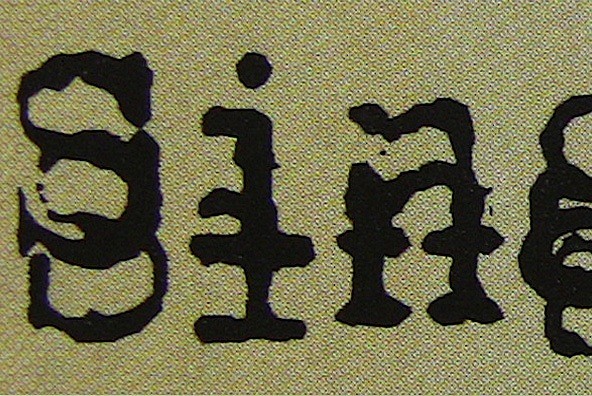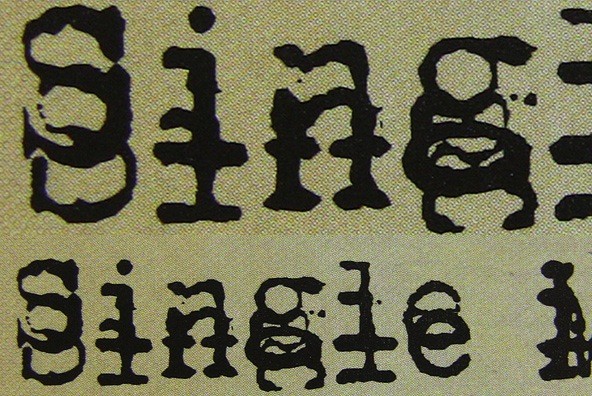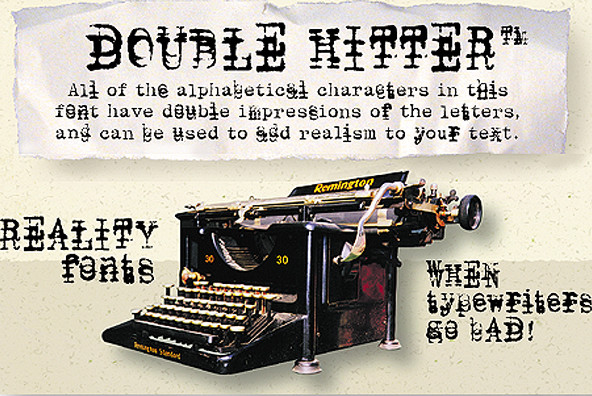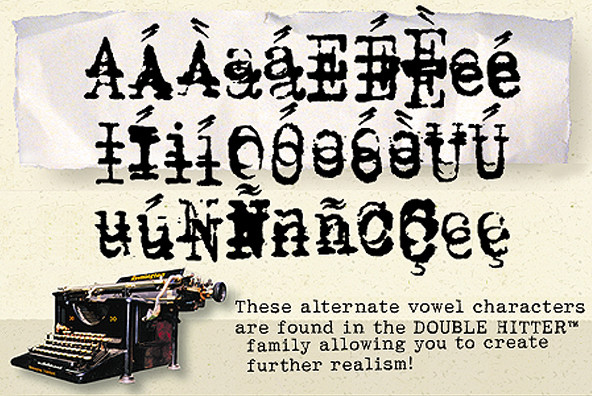
Double Hitter
This font was created mostly to be a companion set for our other Typewriter families, allowing you to introduce the typewriter flaw where you end up with a double impression of a character. A Typewriter emulation with slight inking imperfections, derived from an antique Remington model machine. This family was designed to be a companion family to our Writing Machine family. While some characters are also found in and adapted from those in Writing Machine, these fonts provide the user with alternate character sets, some of which set quite cleanly. If you wish to create a more stressed look with baseline shifts and unequal weight distribution, we recommend using the Uneven font set.